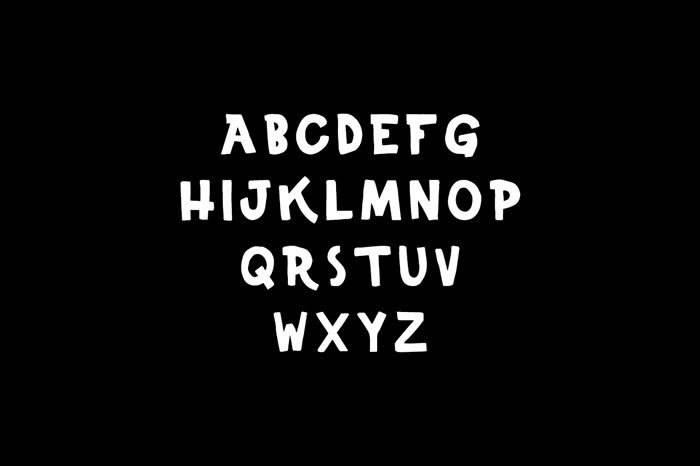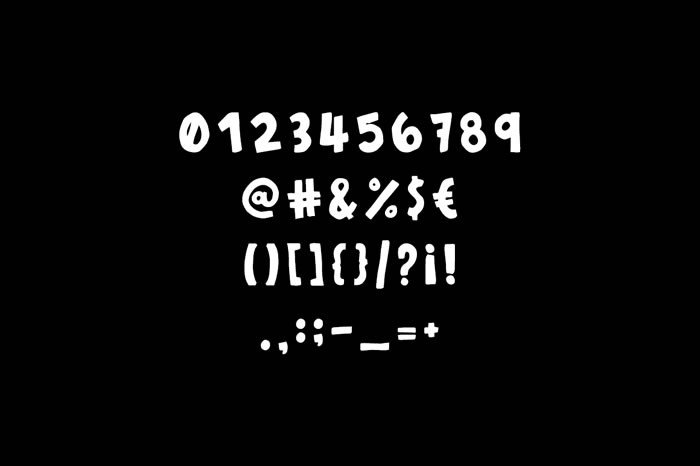
Unlocking Creative Potential with Giant Font
Are you a designer, crafter, or DIY enthusiast looking for a bold and eye-catching typeface to elevate your creative projects? Look no further than the Giant Font! This massive, attention-grabbing font is perfect for making a statement and adding a touch of drama to your designs. In this article, we’ll explore the versatility and potential of the Giant Font, and how it can be used to take your projects to the next level.
The Ultimate Versatility of Giant Font
This Giant typeface can be used perfectly for logo’s, invitations, posters, quotes, letterheads, birthdays and much more! The possibilities are endless, and the Giant Font’s versatility is one of its most appealing features. Whether you’re designing a professional logo or a playful birthday card, this font is sure to make a lasting impression.
Design Possibilities with Giant Font
So, what can you create with the Giant Font? Here are just a few ideas to get you started:
- Eye-catching Logos: Create a bold and memorable logo for your business or brand with the Giant Font.
- Stunning Posters: Design a poster that grabs attention and communicates your message effectively with the Giant Font.
- Personalized Invitations: Make your invitations stand out with the Giant Font, perfect for special occasions like weddings, birthdays, and graduations.
- Inspirational Quotes: Visualize your favorite quotes in a bold and impactful way with the Giant Font.
- Custom Letterheads: Add a touch of professionalism to your letterheads with the Giant Font.
Why Choose Giant Font?
So, why choose the Giant Font over other typefaces? Here are just a few reasons:
- Uniqueness: The Giant Font is a one-of-a-kind typeface that’s sure to make your designs stand out from the crowd.
- Legibility: Despite its massive size, the Giant Font remains clear and legible, making it perfect for a wide range of applications.
- Flexibility: The Giant Font can be used for both digital and print projects, making it a versatile addition to your design toolkit.
Tips for Using Giant Font Effectively
To get the most out of the Giant Font, here are a few tips to keep in mind:
- Use it sparingly: While the Giant Font is attention-grabbing, it can also be overwhelming if overused. Use it sparingly to create maximum impact.
- Experiment with colors: The Giant Font looks great in a wide range of colors, so don’t be afraid to experiment and find the perfect hue for your design.
- Pair it with other fonts: For added visual interest, try pairing the Giant Font with other fonts to create a unique and eye-catching combination.
In conclusion, the Giant Font is a powerful and versatile typeface that’s perfect for designers, crafters, and DIY enthusiasts looking to add a touch of drama to their creative projects. With its unique combination of legibility, flexibility, and impact, the Giant Font is sure to take your designs to the next level. So why wait? Unlock your creative potential with the Giant Font today!